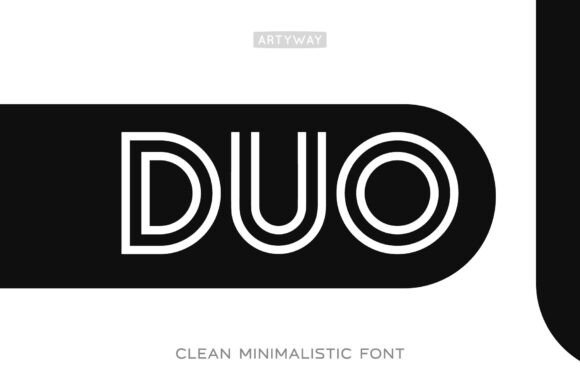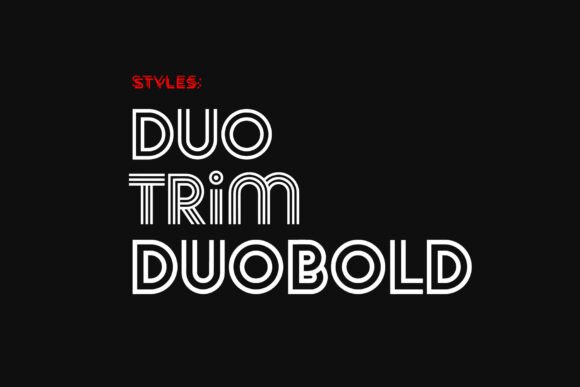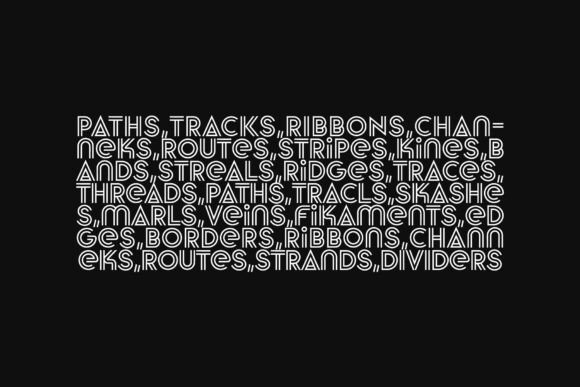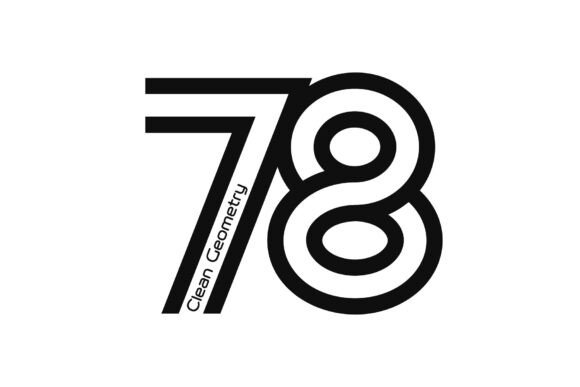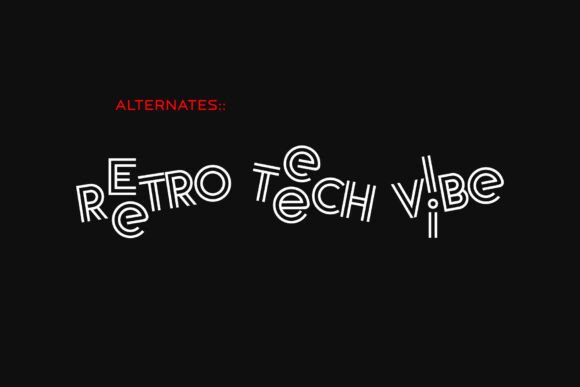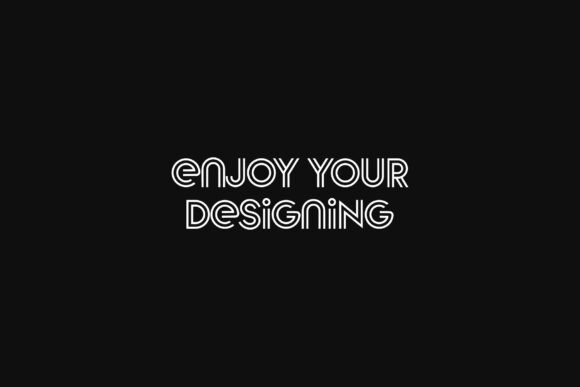
Duo Font
DUO – Clean Minimalistic Display Font
DUO is a geometric, clean, and bold display font with a strong visual rhythm and high-impact presence. With its distinct double-line structure, Duo blends retro-futuristic aesthetics with modern minimalism, making it perfect for standout titles, high-end branding, and creative tech visuals.
This font comes in three stylish variations — DUO, Trim, and DuoBold — allowing you to explore a wide range of visual identities. Whether you’re designing sleek product packaging, editorial layouts, or futuristic posters, DUO adds a unique voice to your typography toolkit.